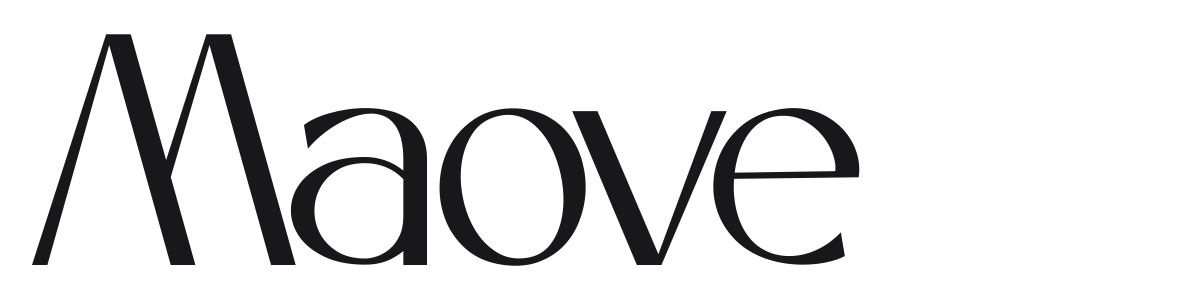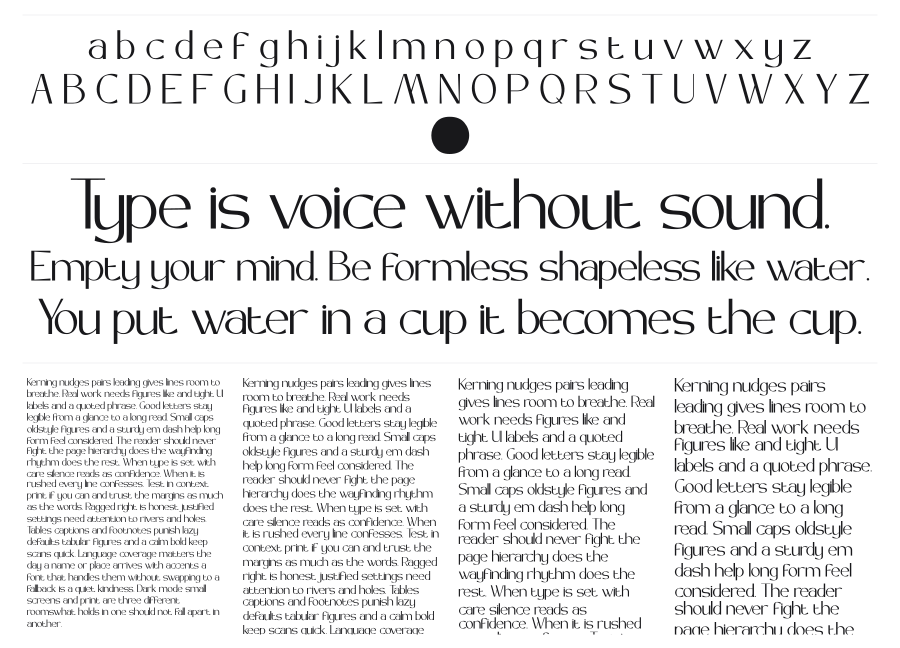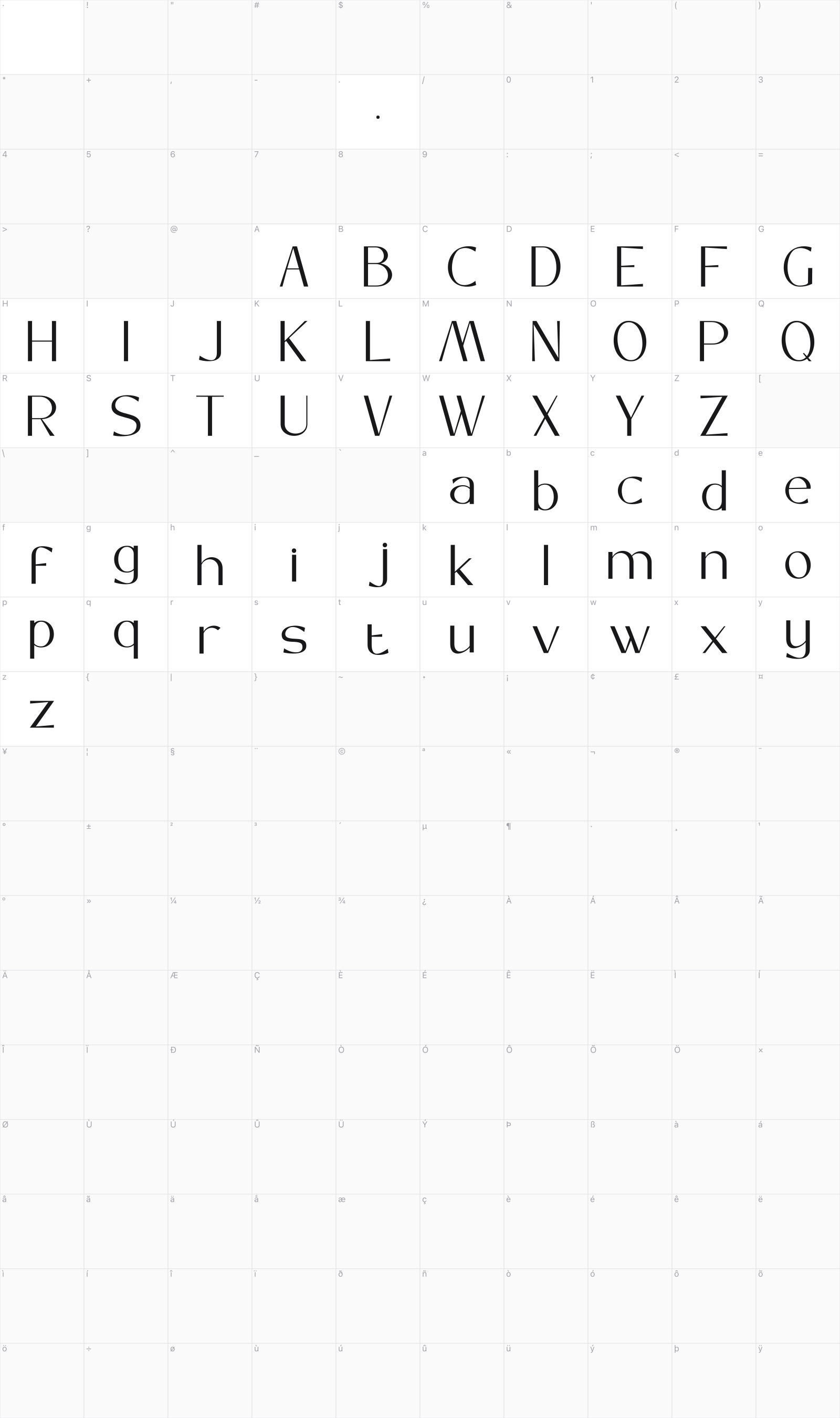
Maove
by Achmad Yani
Maove is a high-contrast sans-serif with hairline thin strokes that give it a distinctly editorial, fashion-forward quality. The wide proportions and airy spacing channel Art Deco couture typography without leaning on period clichés. Strong at large sizes where the contrast between its thins and stems can breathe.